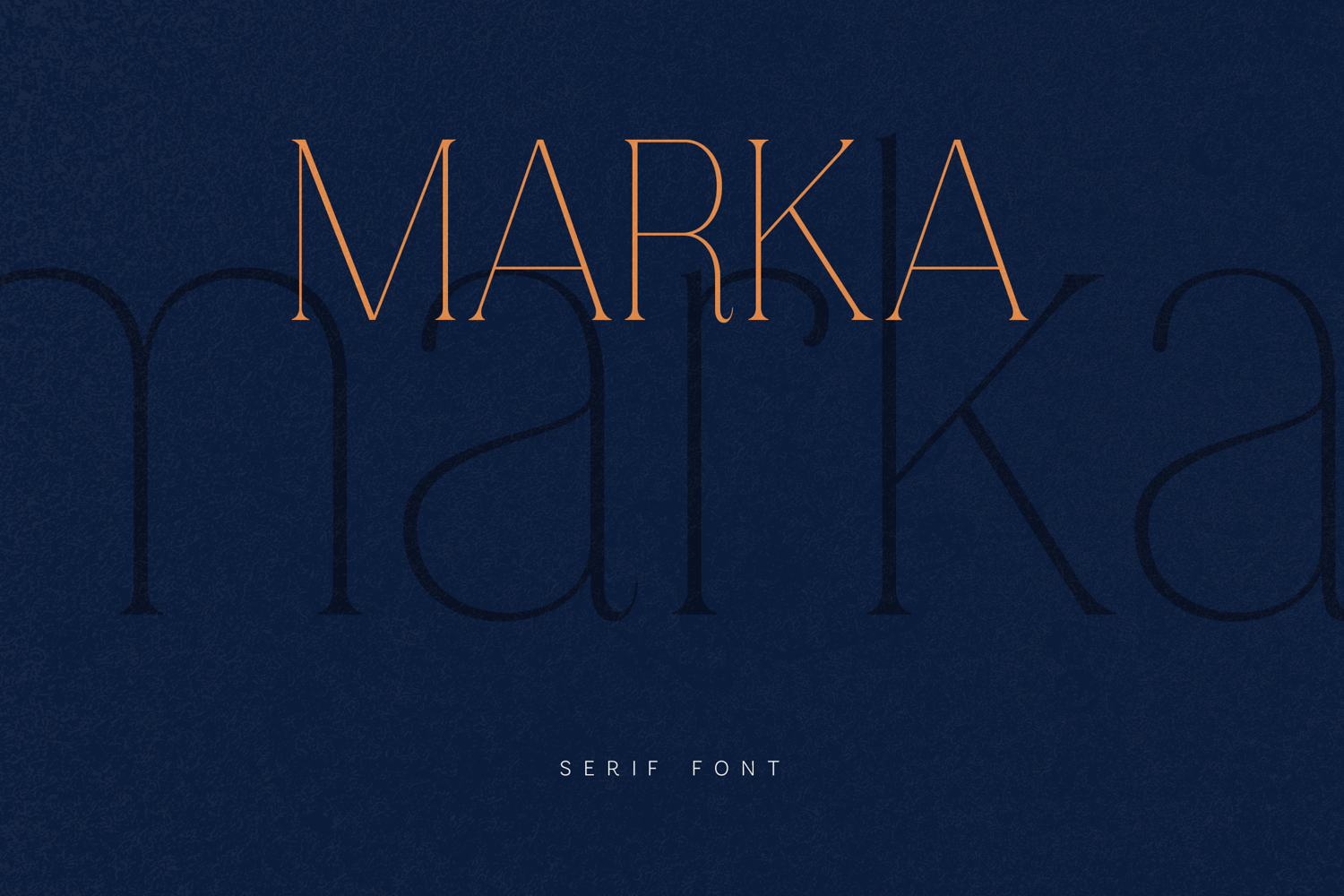
Marka Elegant Serif Font
Marka is a refined serif typeface that combines minimal structure with high-end editorial elegance. Designed with a focus on clean geometry and subtle contrast, it delivers a modern interpretation of classic serif typography.
The letterforms feature smooth transitions, sharp terminals, and carefully balanced proportions. Thin strokes meet confident verticals, creating a calm rhythm that feels both sophisticated and contemporary. The overall appearance is light, airy, and highly controlled, making the typeface visually striking without being overwhelming.
Marka is built to perform across a wide range of modern design compositions. Its clarity and elegance make it suitable for layouts that require precision and visual harmony. The uppercase characters bring structure and presence, while the lowercase set introduces softness and flow, allowing text to feel natural and readable.
This typeface works especially well in:
• editorial layouts
• magazine typography
• luxury branding
• logo design
• packaging design
• modern visual identities
• clean typography compositions
• minimal design systems
Marka includes uppercase letters, lowercase letters, numbers, punctuation, symbols, and extended multilingual support, allowing it to be used in international projects.
With its clean elegance, balanced contrast, and modern serif structure, Marka is a typeface designed to bring clarity, refinement, and contemporary sophistication into every composition.